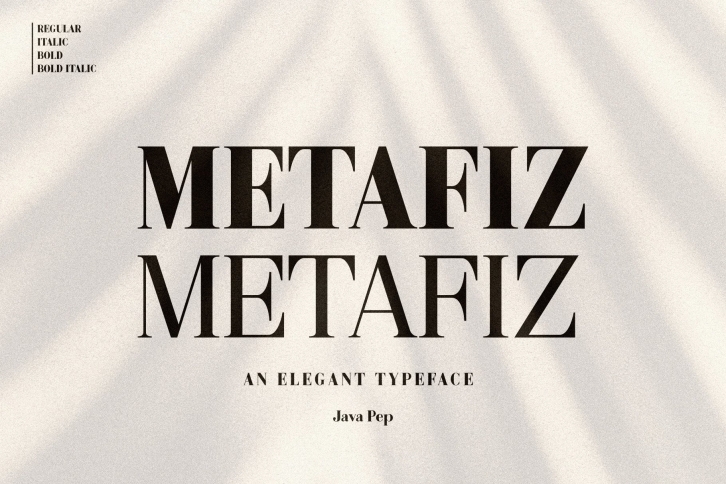
Metafiz is a trendy and unique font with an authentic style. It was designed by JavaPep and it's a great choice for creative people who need such a font. It was released on August 13, 2020 and the file size is 19.13 MB. Metafiz will add an organic vibe to any design idea!